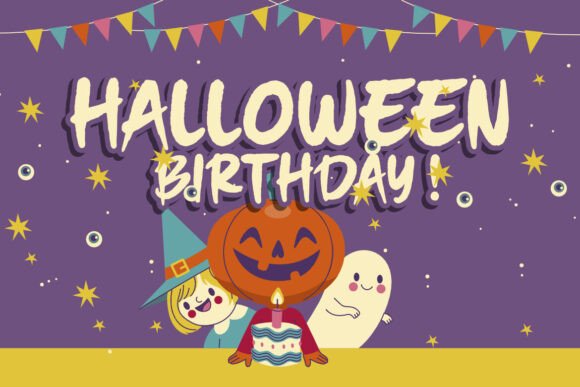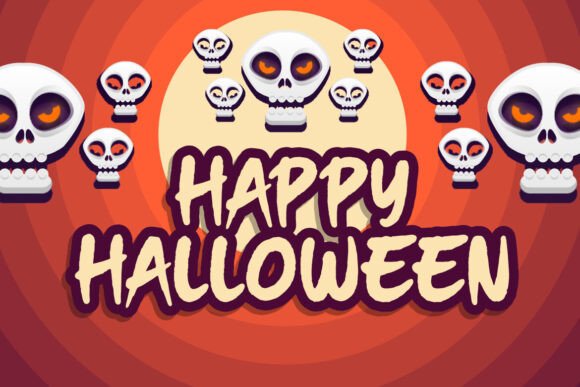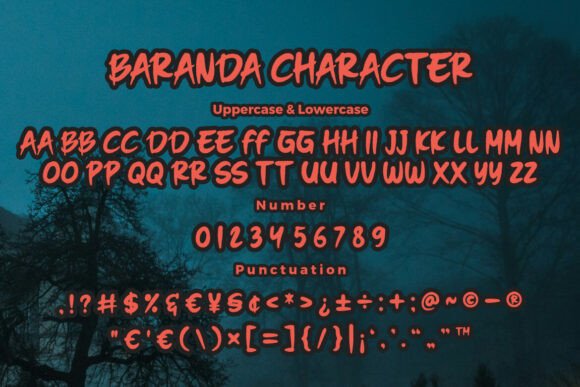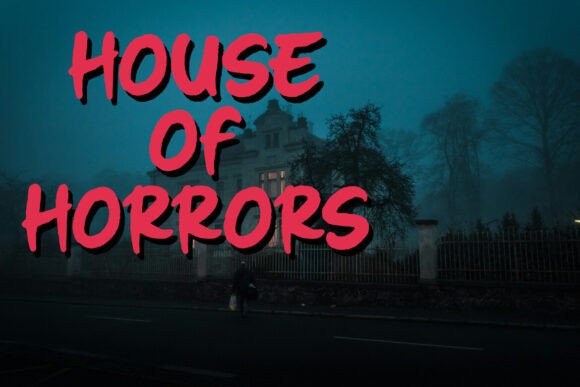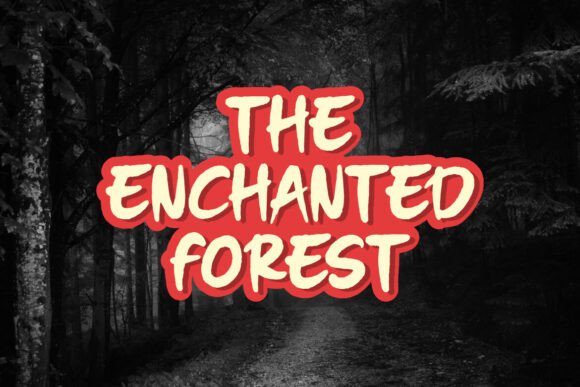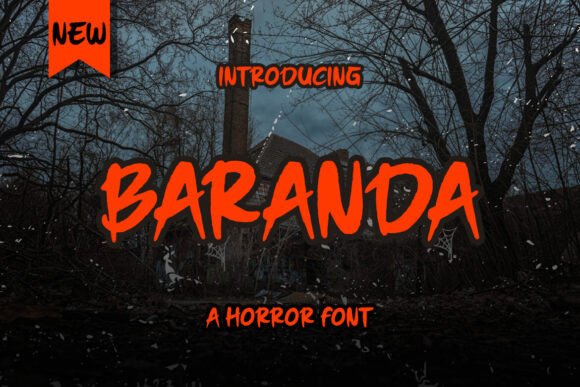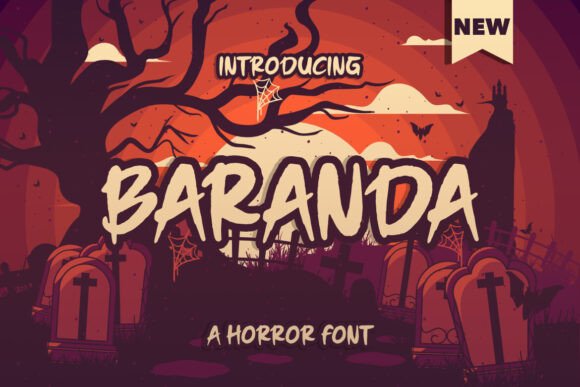
Introducing Baranda: A Horror Font to Elevate Your Design
Are you a designer or crafter looking for a unique and high-quality font to add a touch of horror and elegance to your projects? Look no further than Baranda, a premium font designed to meet your creative needs. In this article, we’ll explore the features and benefits of Baranda, and how it can elevate your designs to the next level.
What is Baranda Font?
Baranda is a horror-themed font, carefully crafted with attention to detail and a high level of premium quality. This font is perfect for designers and crafters who want to add a touch of darkness and sophistication to their projects. With its unique and eerie style, Baranda is sure to make your designs stand out from the crowd.
Features of Baranda Font
So, what makes Baranda font so special? Here are some of its key features:
- High-quality design: Baranda font is designed with a high level of premium quality, ensuring that it looks great in any design project.
- Horror theme: With its eerie and mysterious style, Baranda font is perfect for horror-themed designs, Halloween projects, and more.
- Versatile: Baranda font can be used for a wide range of design projects, including flyers, quotes, posters, banners, packaging, merchandise, logotypes, and more.
Benefits of Using Baranda Font
So, why should you choose Baranda font for your design projects? Here are some of the benefits of using this amazing font:
- Add a touch of horror and elegance: Baranda font can add a unique and sophisticated touch to your designs, making them stand out from the crowd.
- Perfect for horror-themed designs: If you’re working on a horror-themed project, Baranda font is the perfect choice. Its eerie and mysterious style will help create a spooky atmosphere that will leave your audience on the edge of their seats.
- Increase your design’s impact: With its high-quality design and unique style, Baranda font can help increase the impact of your designs, making them more engaging and memorable.
Design Ideas Using Baranda Font
Baranda font is versatile and can be used for a wide range of design projects. Here are some ideas to get you started:
- Horror-themed posters: Create spooky posters for horror movies, Halloween events, or haunted houses.
- Eerie flyers: Design flyers for haunted attractions, horror-themed parties, or spooky events.
- Creepy quotes: Create inspirational quotes with a horror twist, using Baranda font to add a touch of eeriness.
- Packaging design: Use Baranda font to create eye-catching packaging for horror-themed products, such as Halloween costumes or makeup.